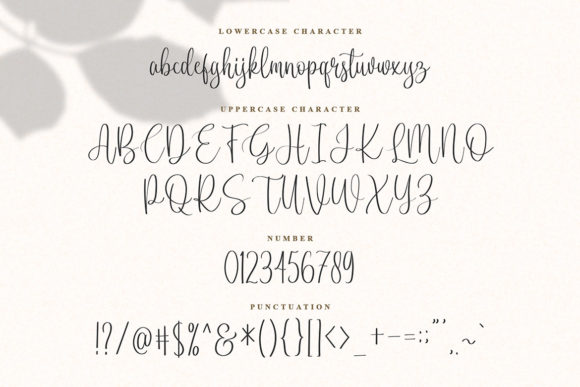
Gilonta Font
About Gilonta Font
Gilonta is beautiful new handwritten font.inspired by modern calligraphy, Gilonta is great for logos, wedding invitations, headlines, signatures, and more.